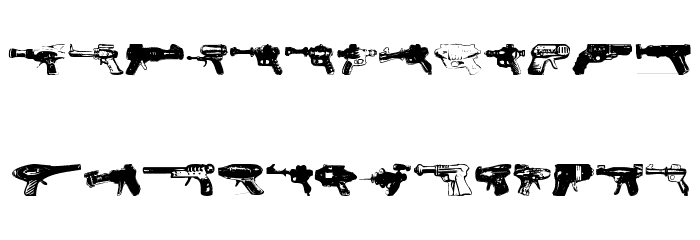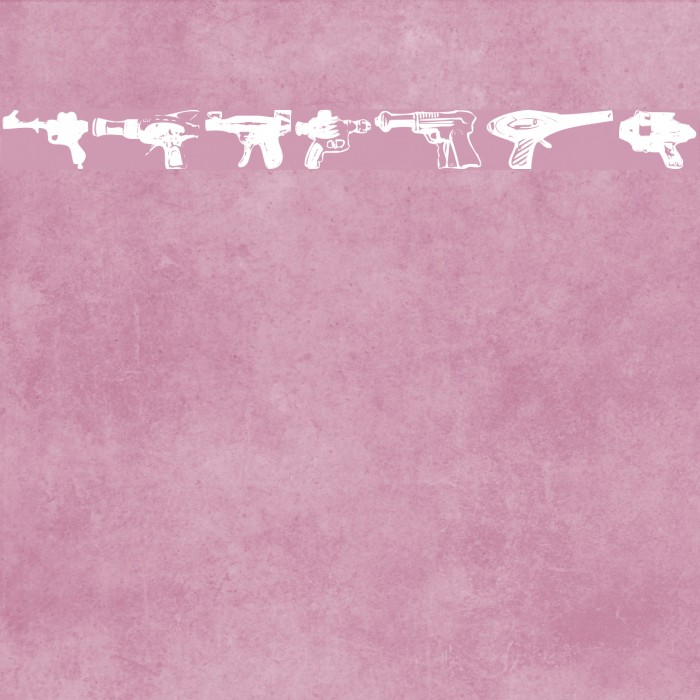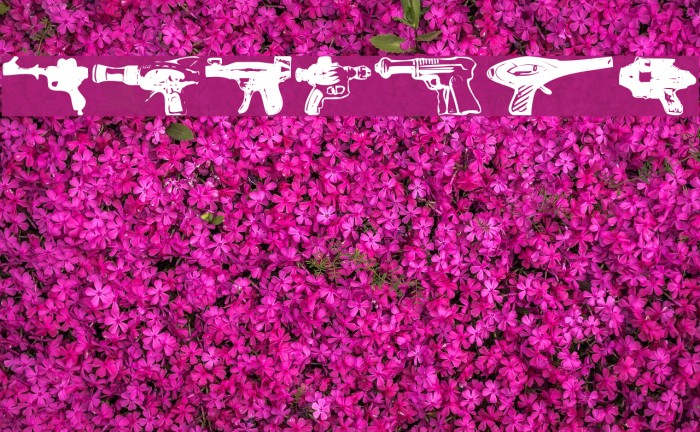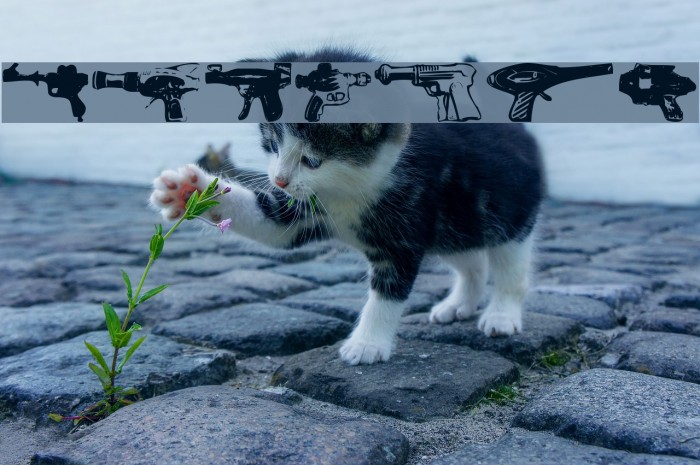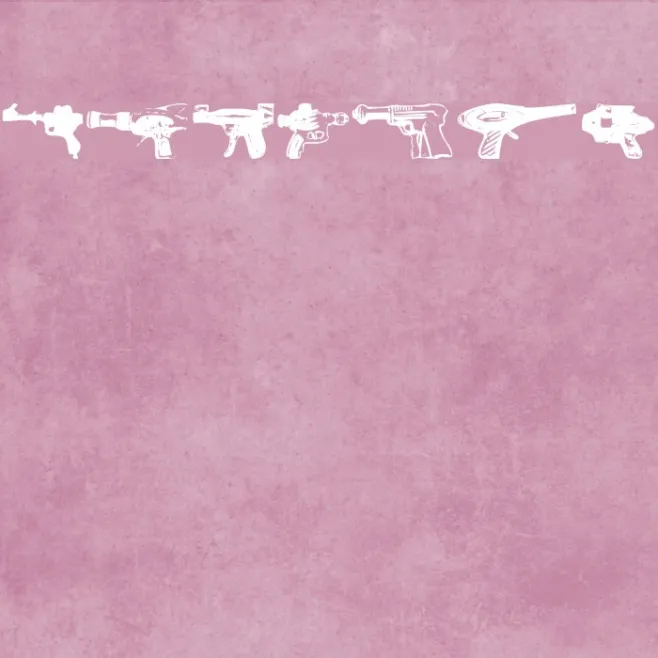
rayguns Font
This font features a collection of stylized raygun illustrations, each representing a different character. The designs are bold and distinct, capturing a retro-futuristic aesthetic reminiscent of classic science fiction. Each raygun is intricately detailed, showcasing unique shapes and elements that convey a sense of adventure and innovation. The font is purely decorative, with each character being a unique graphic rather than a traditional letterform. This makes it ideal for creative projects where a playful and imaginative touch is desired.
A decorative font featuring detailed raygun illustrations for each character.
- Proposed Projects: Ideal for science fiction themed posters, creative graphic design projects, or novelty merchandise.
- Overall Style: Retro-Futuristic
- Use Case: Logos, Posters, Creative Displays